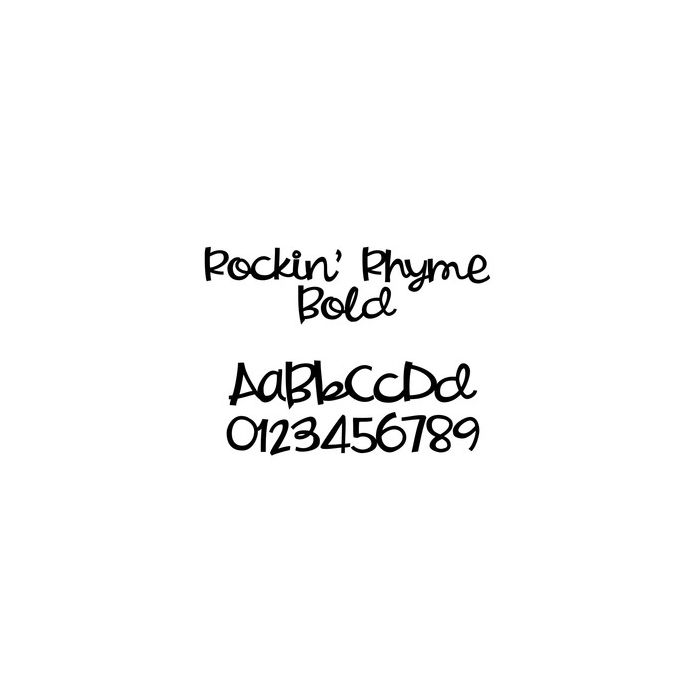
This fun bold semi-script is perfect lettering for journaling, posters and more! For more fun fonts like this please visit: http://www.letteringdelights.com/lettering/fonts-c1c3